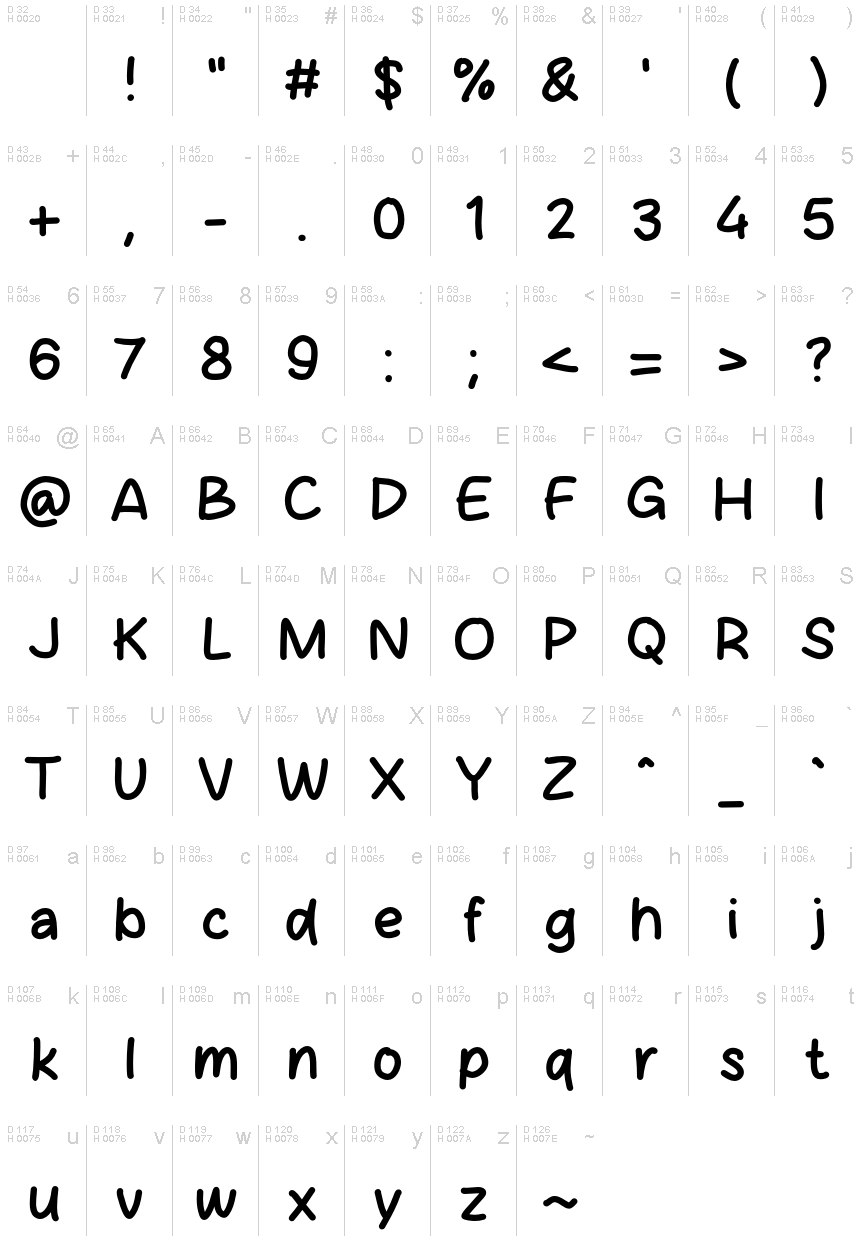
Glamour Day
Glamour Day font by MJType captures the essence of handwritten elegance with its playful and casual style. This free font boasts a unique charm, characterized by its fluid strokes and organic feel. Perfect for designers seeking to infuse personality into their projects, Glamour Day thrives in applications ranging from branding to social media graphics.
Its versatility shines in invitations, posters, and lifestyle blogs, making it an ideal choice for creatives who want to convey warmth and originality. Seamlessly blend this stylish typeface into your next design project and watch it elevate your visual communication.